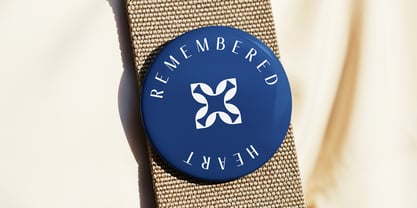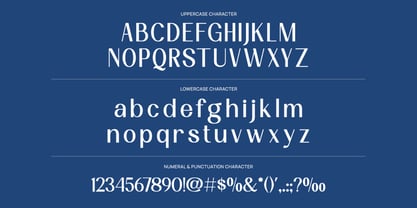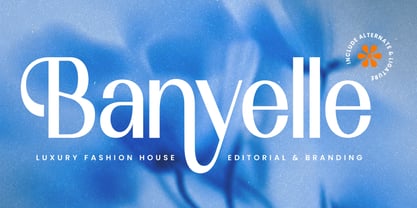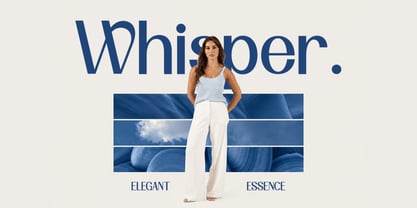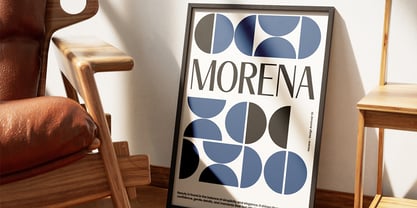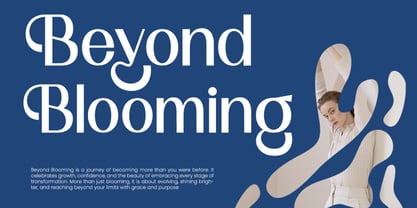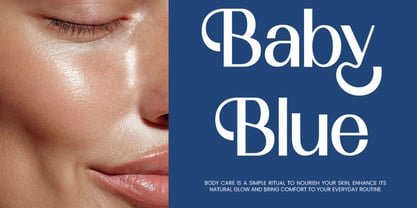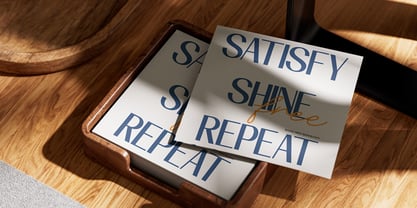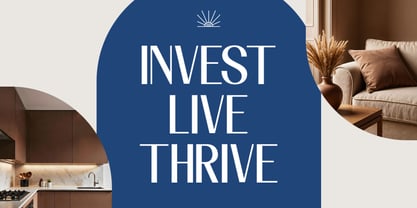
Banyelle
Banyelle is a sophisticated display typeface distinguished by its tall proportions, refined high-contrast strokes, and elegantly elongated letterforms. The design merges modern sans serif construction with subtle art-deco influences, creating a graceful visual rhythm that feels luxurious, fashion-forward, and editorial in character. Distinctive alternate glyphs and carefully sculpted curves introduce a sense of individuality, allowing the typeface to appear both contemporary and timeless.
Relevance and Use Case is perfect for premium branding projects that require an elegant and modern visual identity. Its refined proportions and alternate characters make it suitable for fashion houses, beauty and skincare brands, perfume packaging, luxury boutiques, magazines, jewelry labels, wedding stationery, product campaigns, social media content, and sophisticated editorial compositions where typography becomes a central design element.